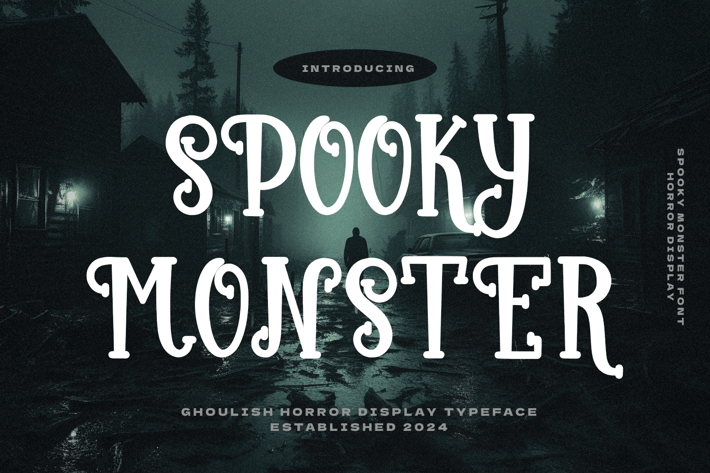
Spooky Monster - Halloween Font
Unleash the frightful fun with "Spooky Monster," a quirky and playful font perfect for all your Halloween and horror-themed projects. With its unique, hand-drawn style, this font brings a spooky yet lighthearted touch to any design. Whether you're creating haunted party invites, eerie posters, or fun decorations, "Spooky Monster" will add the perfect mix of creepy and cute!
Each letter in "Spooky Monster" is filled with character, giving your designs a playful edge that will stand out. The quirky, uneven strokes evoke the eerie charm of Halloween, making it an ideal choice for horror-themed projects that still want to maintain a fun, whimsical vibe. Perfect for all things spooky, this font will transform your creative ideas into something truly monstrous.
Get ready to spook your audience with style! From Halloween crafts to haunted house signs, "Spooky Monster" is versatile enough to use across multiple projects. Its quirky style ensures that your work will have a unique flair, grabbing attention and adding that extra element of frightful fun to your designs.